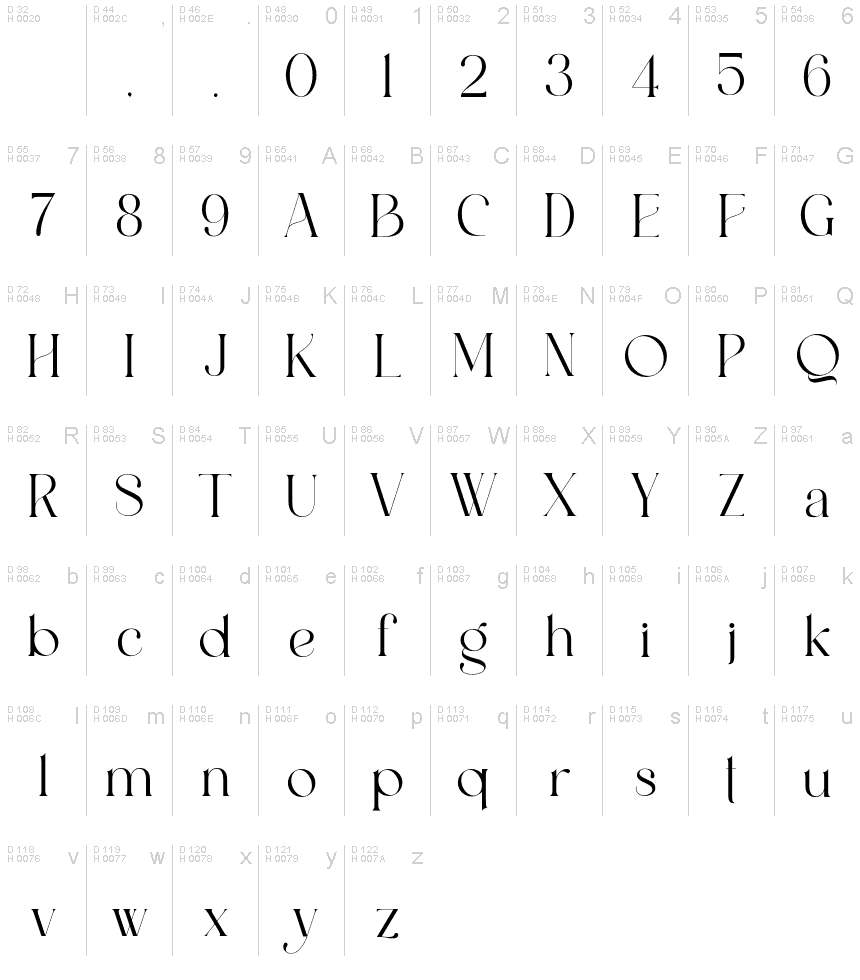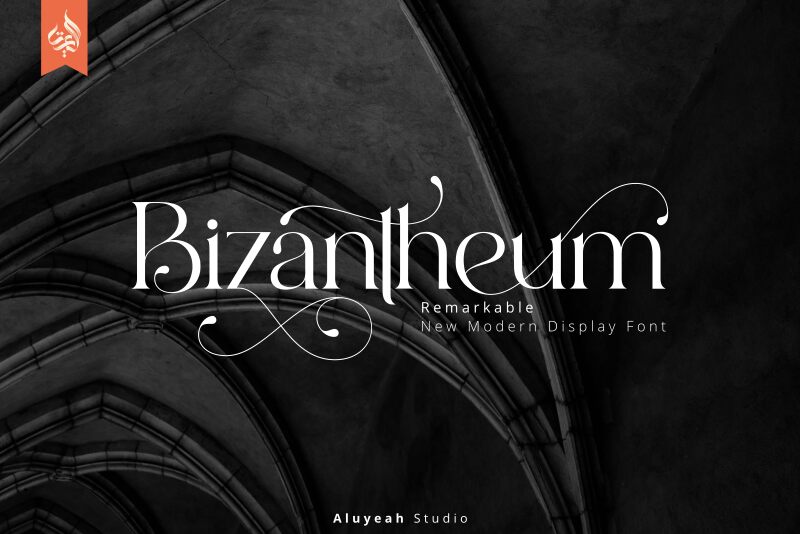
Bizantheum
Bizantheum is a light font created by Aluyeah Studio. It's an elegant, timeless typeface that can be used for both print and web projects. It's perfect for designing logos, invitations, titles and quotes.
Bizantheum, remarkable new modern display font. Inspired by the majesty and mystique of the Byzantine era buildings. Coming with 130+ stunning and super easy to use alternates.